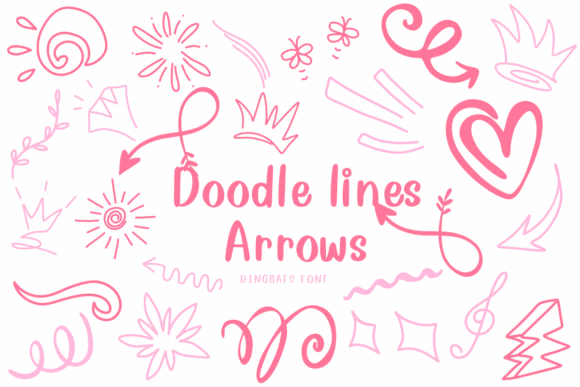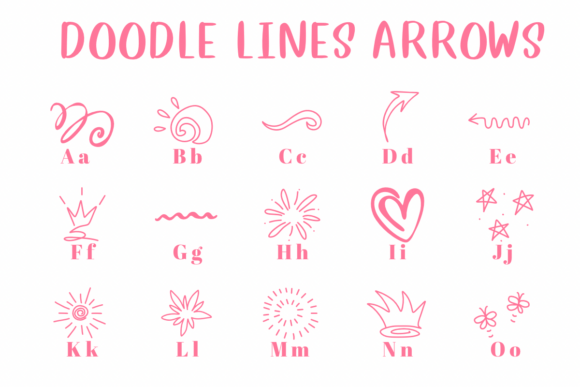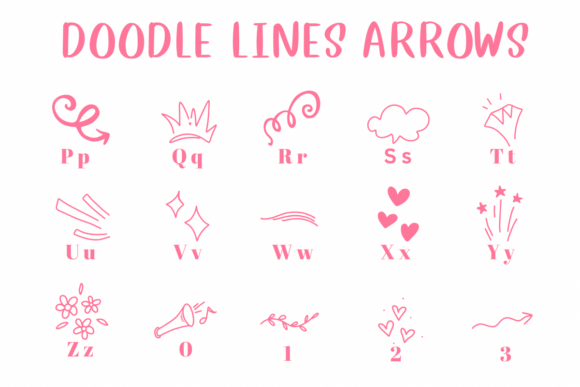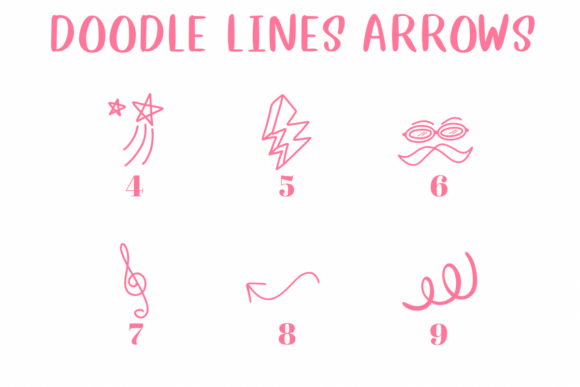
Doodle Lines Arrows Font
About the Doodle Lines Arrows Font
From logos to headlines, the Doodle Lines Arrows Font is the perfect choice for making a lasting impression. Add a playful and whimsical flair to your designs with the
Doodle Lines Arrows Font
– a delightful dingbats typeface packed with hand-drawn elements like squiggles, stars, hearts, and quirky arrows. Perfect for scrapbooking, kids’ projects, social media posts, or any creative work that needs a light-hearted touch. Each symbol is crafted to feel spontaneous and fun, making your designs feel unique and full of personality.
This font shines in applications requiring a lighthearted and informal aesthetic. Ideal uses include headlines, short social media copy, packaging for children’s products, or playful branding for companies targeting a younger demographic. Avoid using it for body text or lengthy paragraphs; its whimsical nature can become overwhelming and hinder readability.
Doodle Lines Arrows Font pairs well with clean sans-serif fonts like Open Sans for a balanced contrast, or with a more playful script font such as Pacifico for a consistent whimsical feel. A geometric sans-serif like Montserrat can provide a modern counterpoint, grounding the design.
The overall personality is undeniably playful and friendly, conveying a sense of fun and spontaneity. It’s best suited for brands projecting youthfulness, creativity, and approachability.
Doodle Lines Arrows Font Usage Examples
Doodle Lines Arrows Font Example